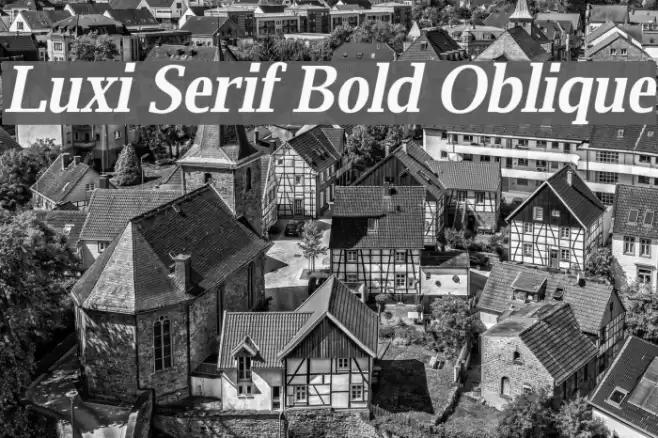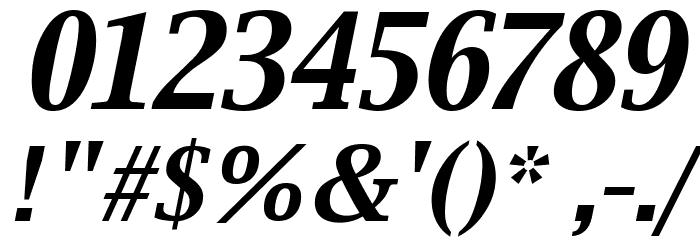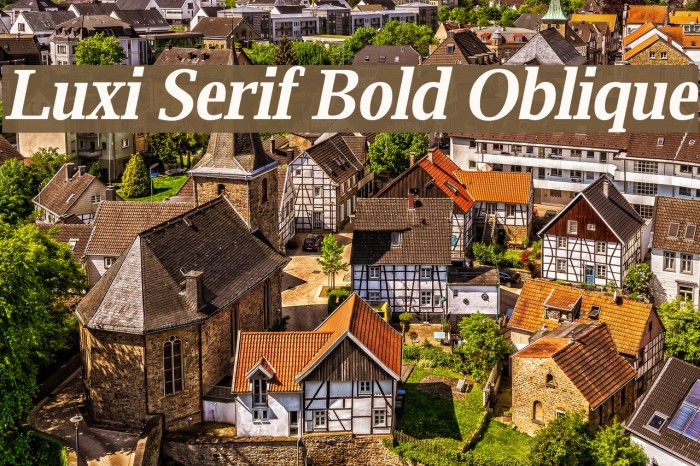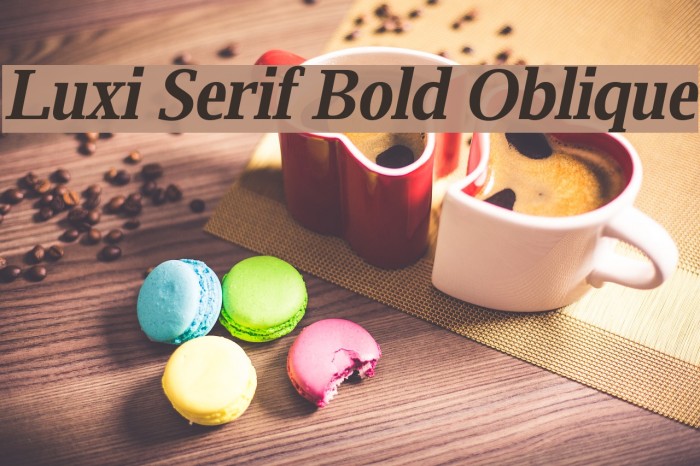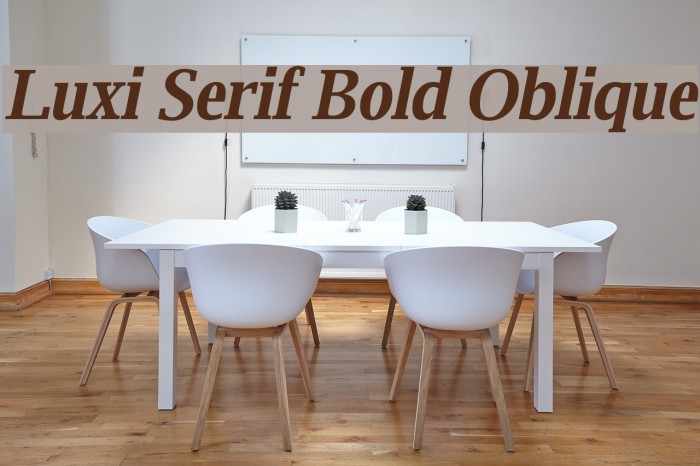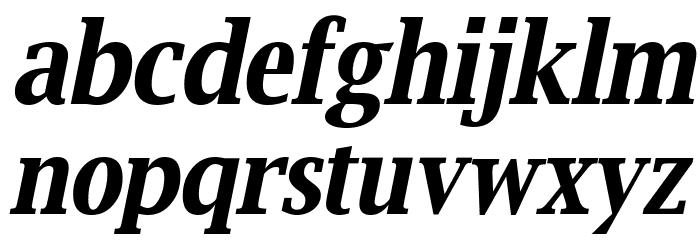
Luxi Serif Bold Oblique Font
Luxi Serif Bold Oblique Description
This font features a bold and oblique style with a classic serif design. The letters are slightly slanted, giving a dynamic and elegant appearance. The serifs are pronounced, adding a touch of sophistication and readability. The bold weight ensures strong visibility, making it suitable for impactful headlines and titles. The character set includes both uppercase and lowercase letters, numerals, and a variety of special characters, providing versatility for different types of content. The overall style is a blend of traditional serif elegance with a modern twist due to its oblique nature.
A bold, oblique serif font with a classic yet dynamic style from Uncategorized fonts.
- Proposed Projects: Ideal for editorial design, book covers, formal invitations, and branding projects that require a touch of elegance and strength.
- Overall Style: Classic